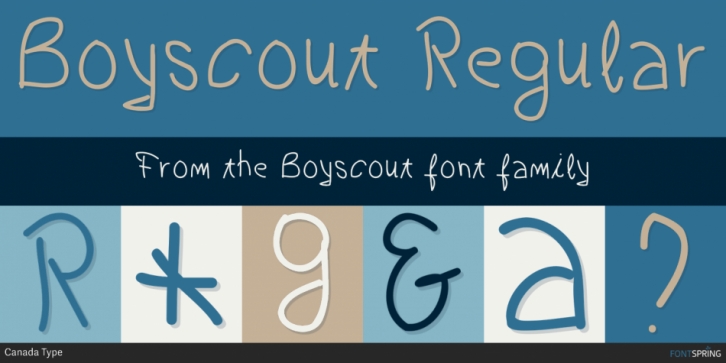
Boyscout is a hand drawn and kids font published by Canada Type.
Digitized from the handwriting of Simone Wilkie’s son, Boyscout is a font that demonstrates a mix between the power of learning and individual creative development of a seven year old child.
The struggle to conform with observation appears in most letters, while the creative streak shows clearly in letters like the swashed N, the single-stroke Q, the high T, and the charmingly odd, calligraphic z.